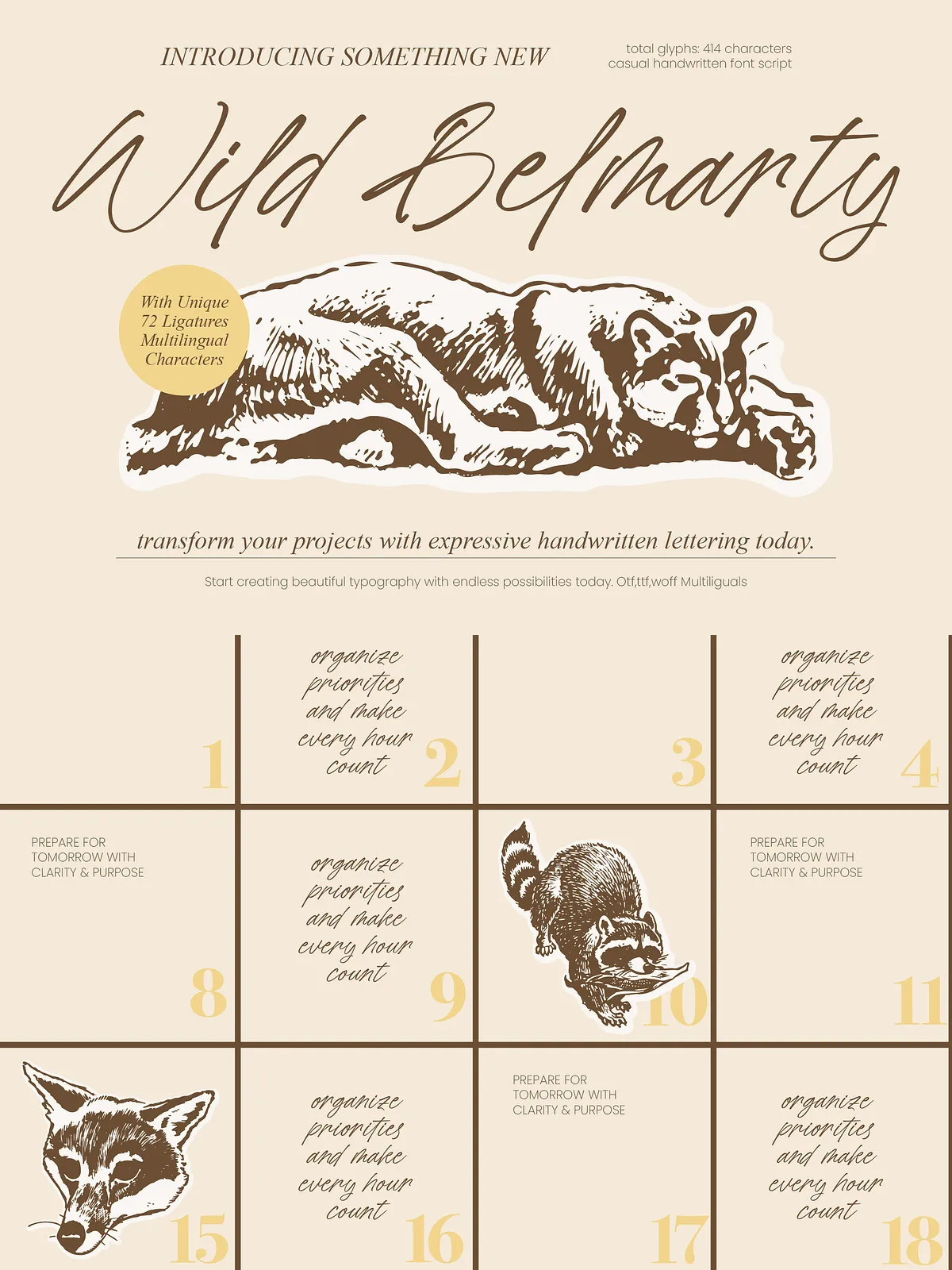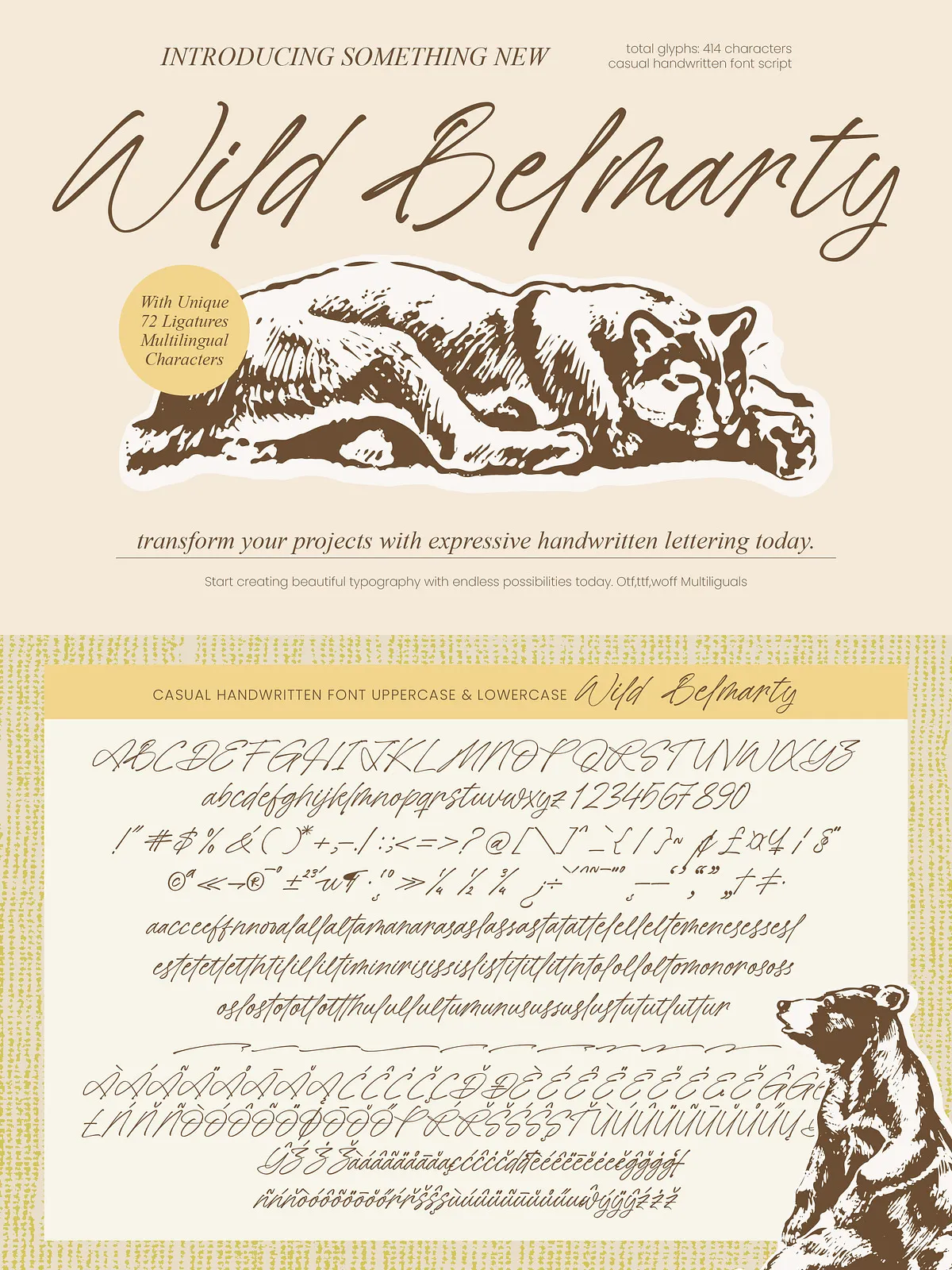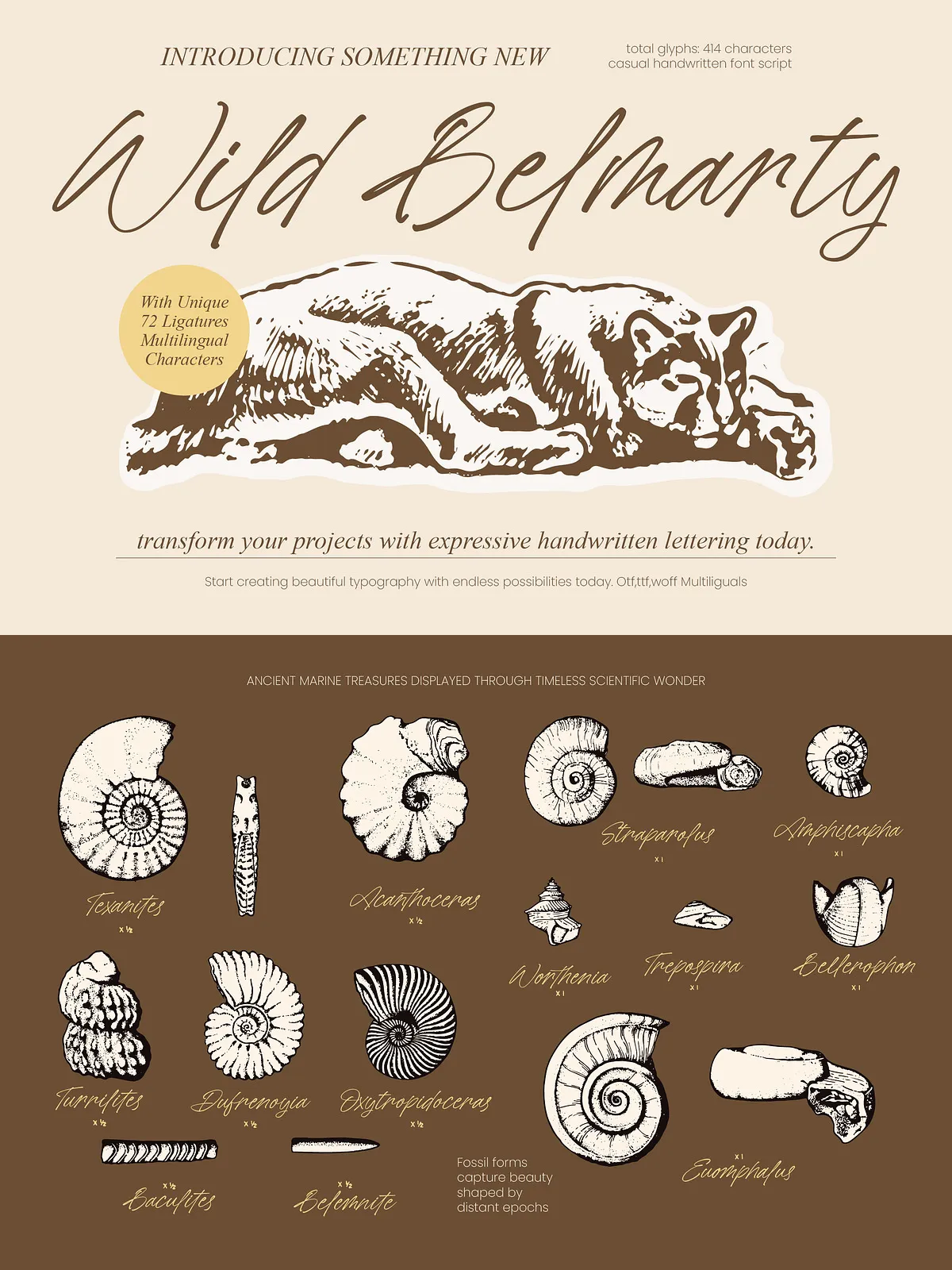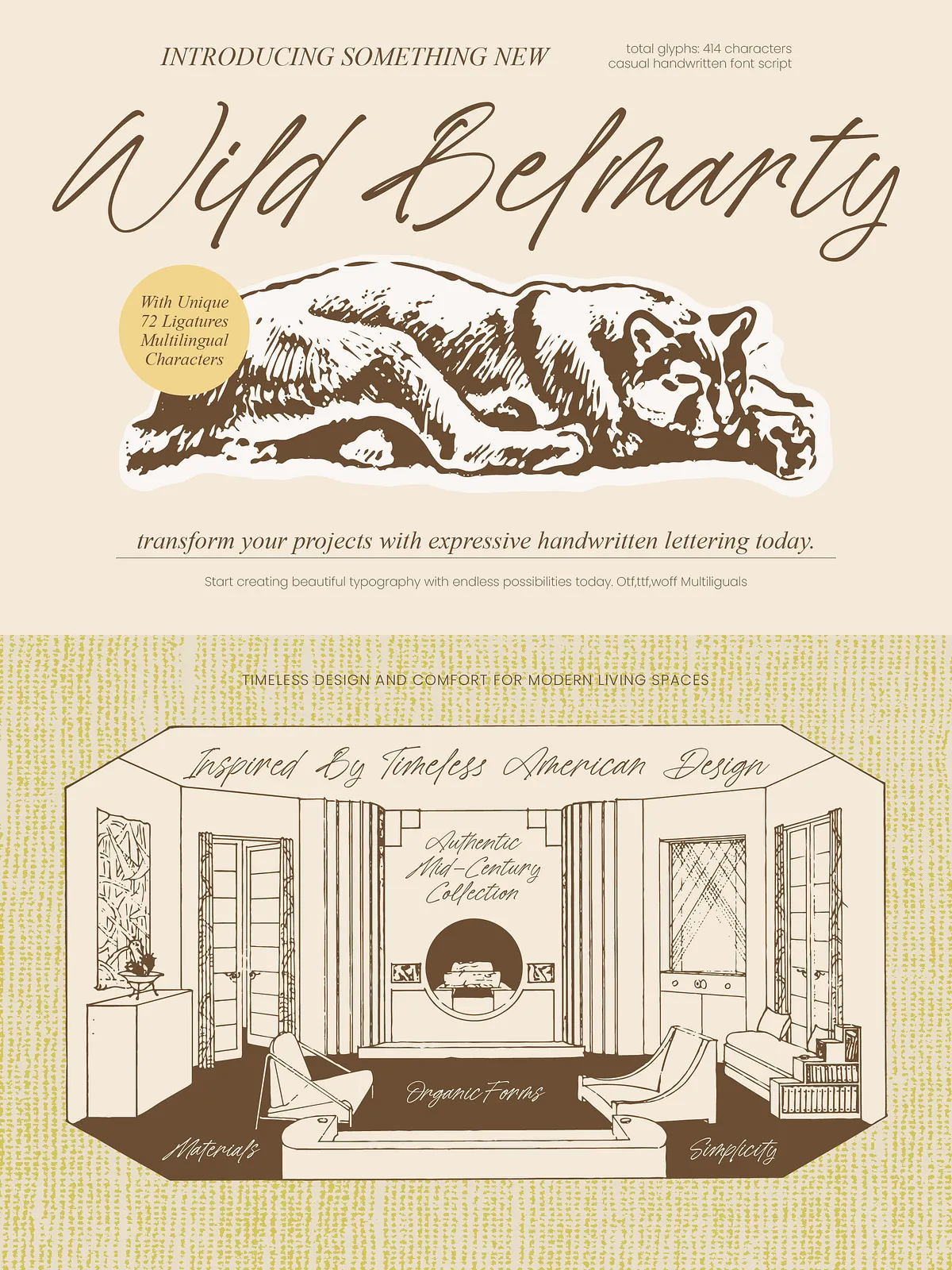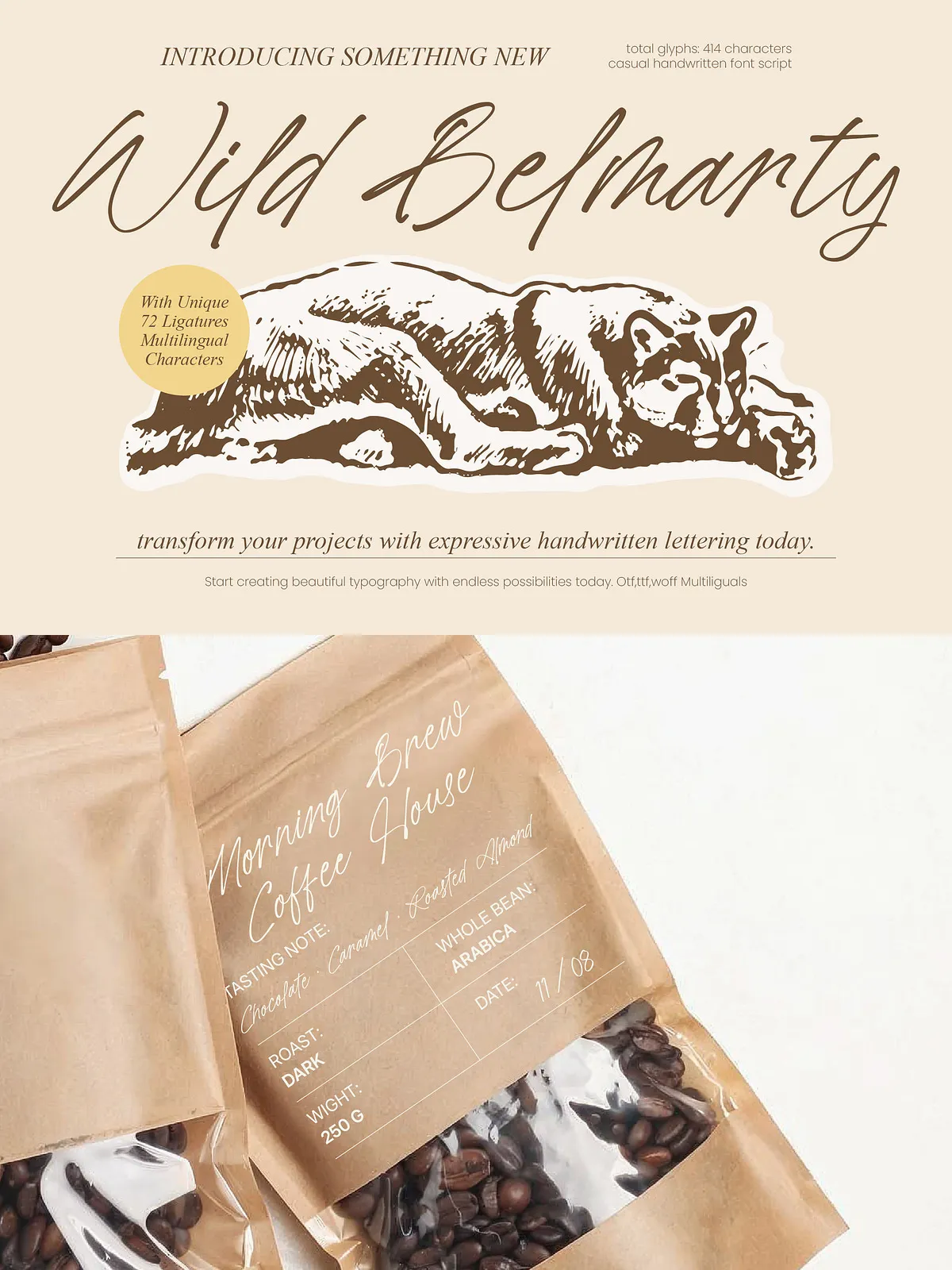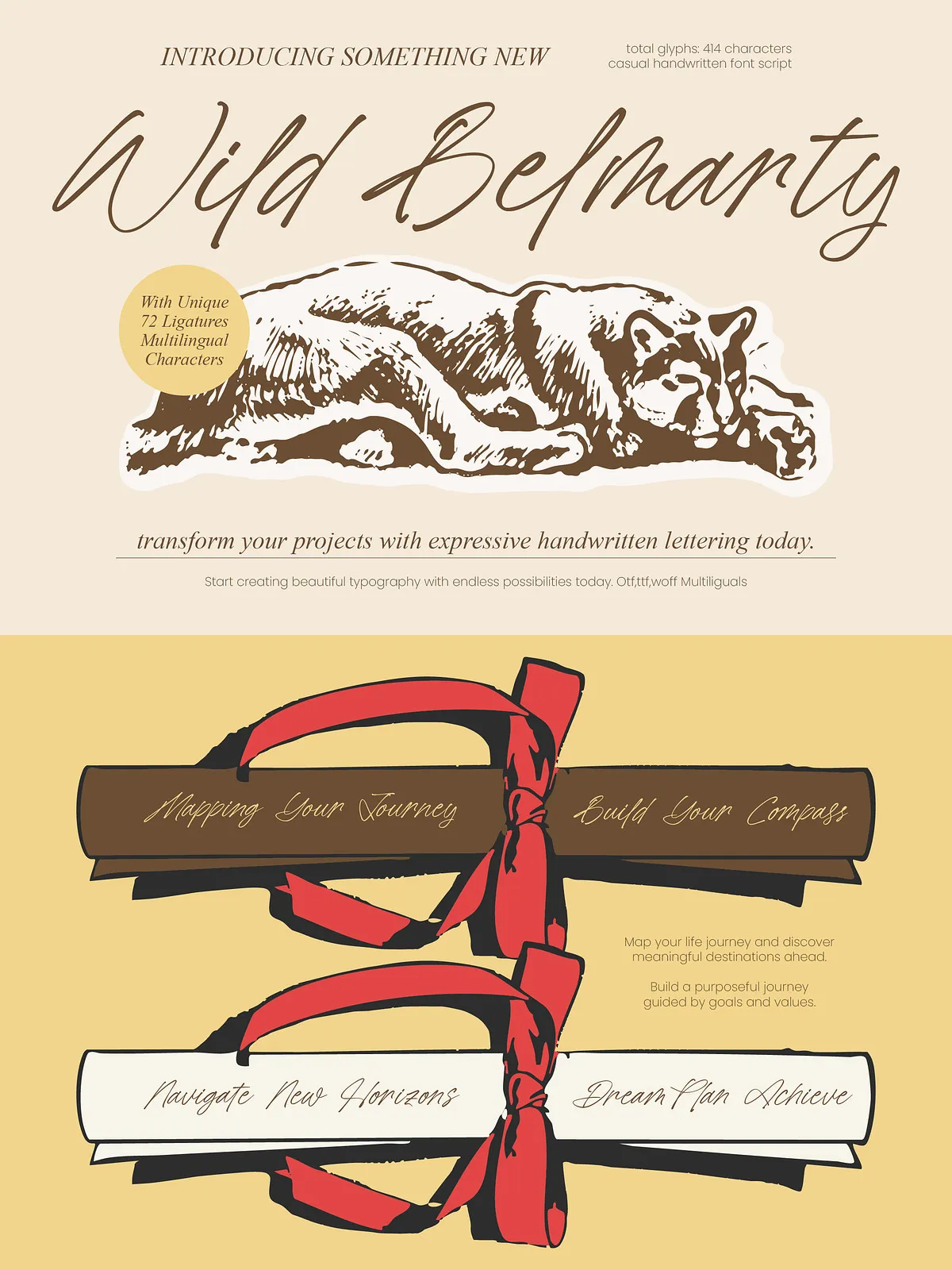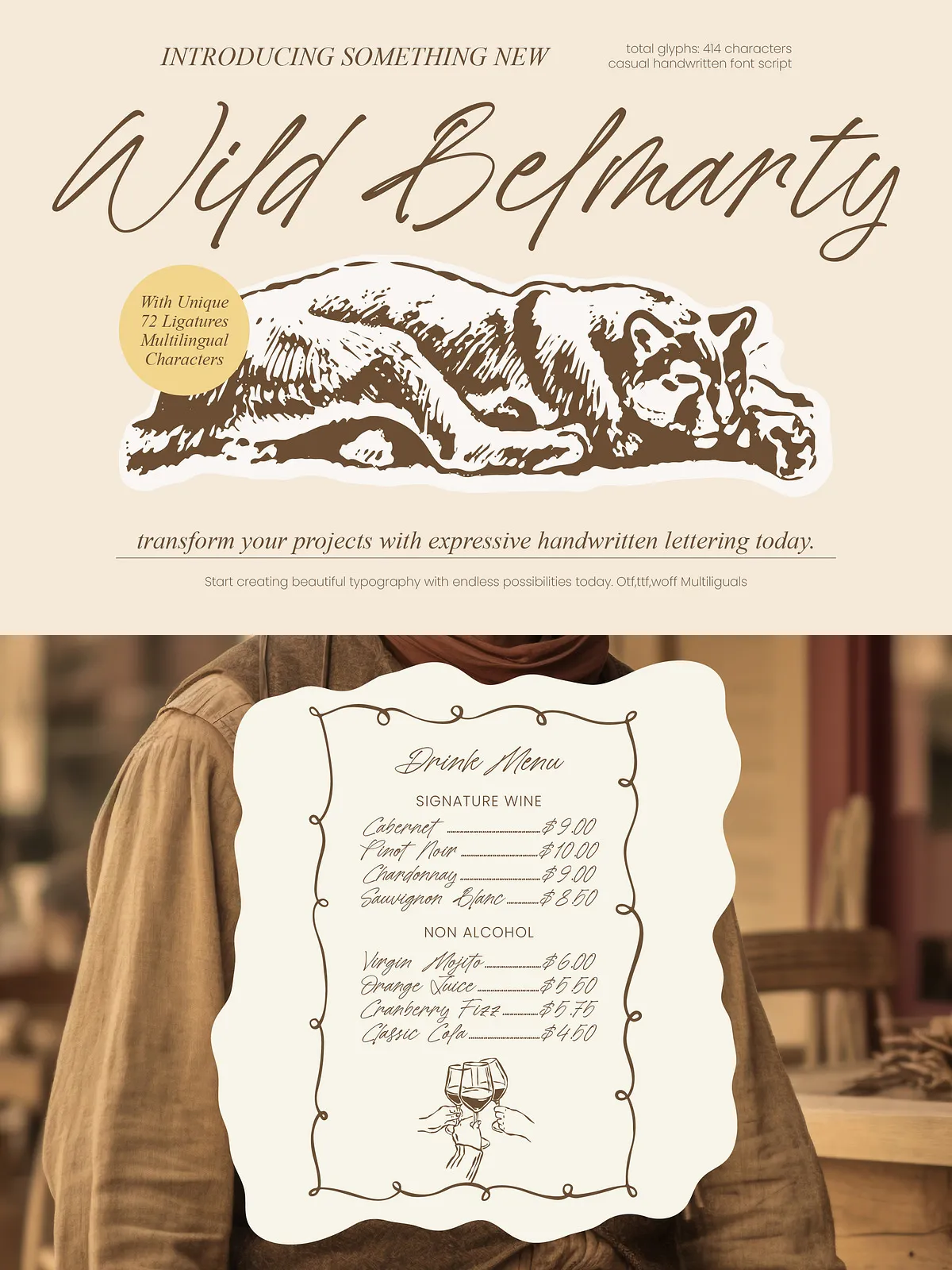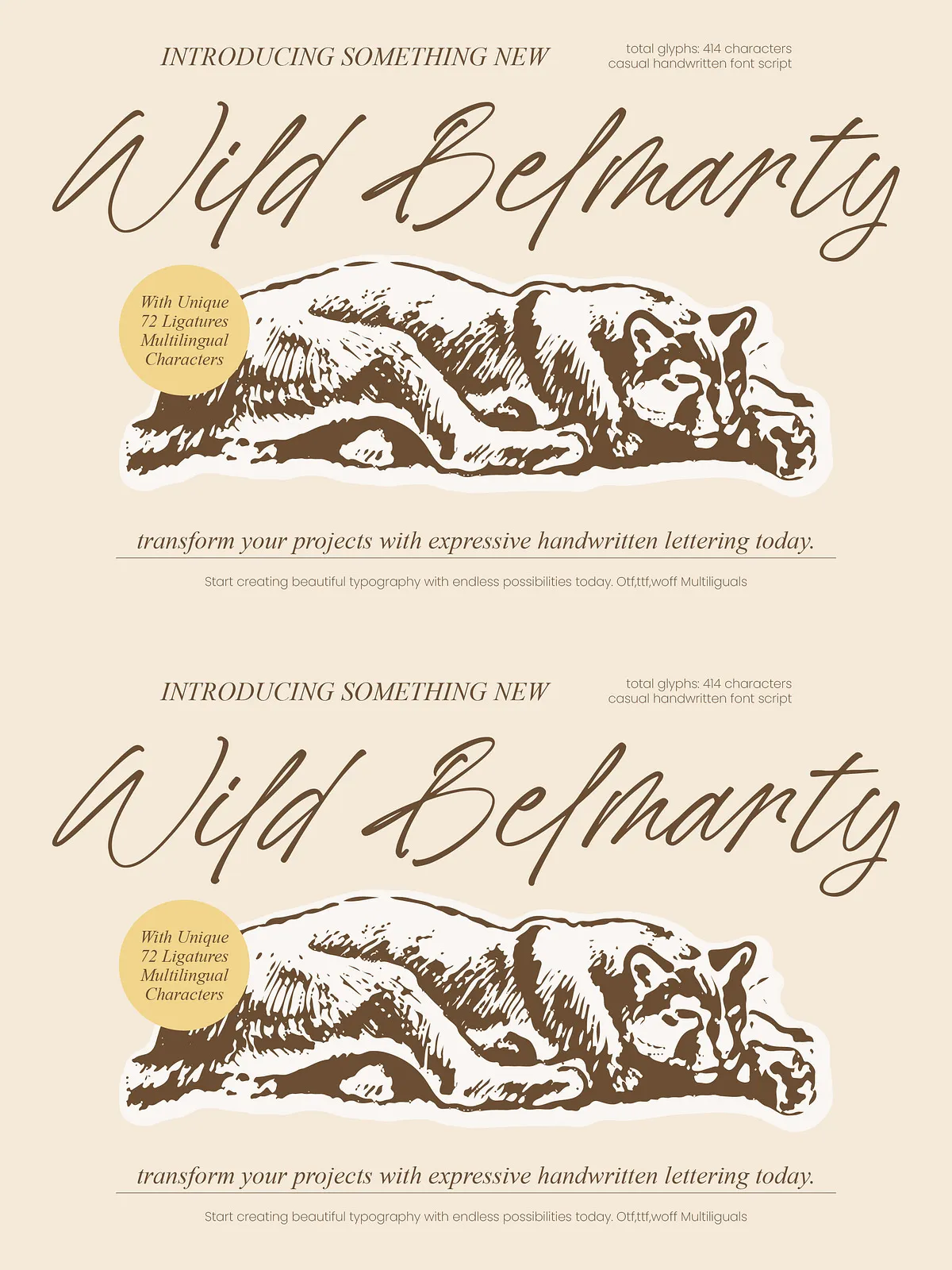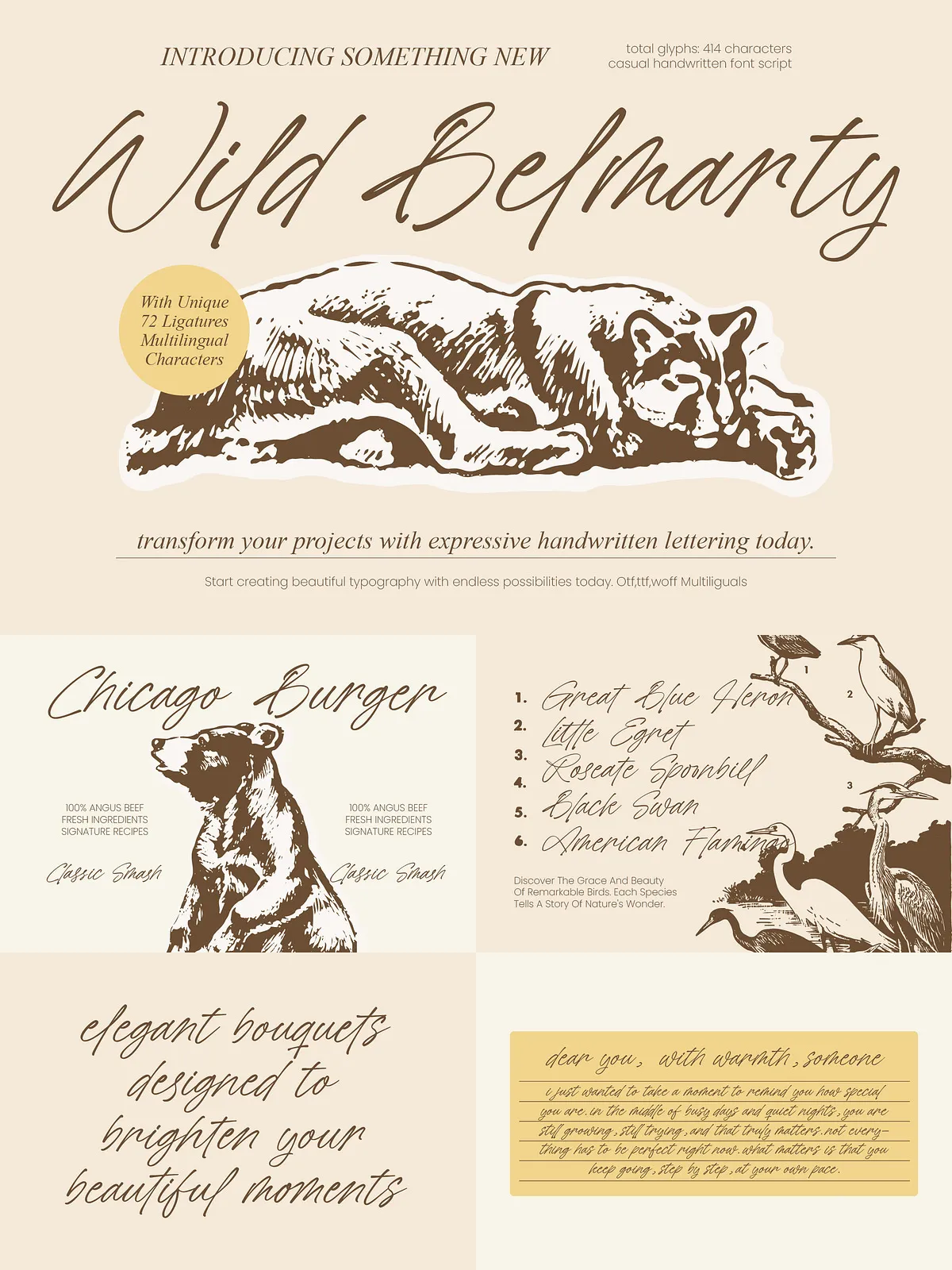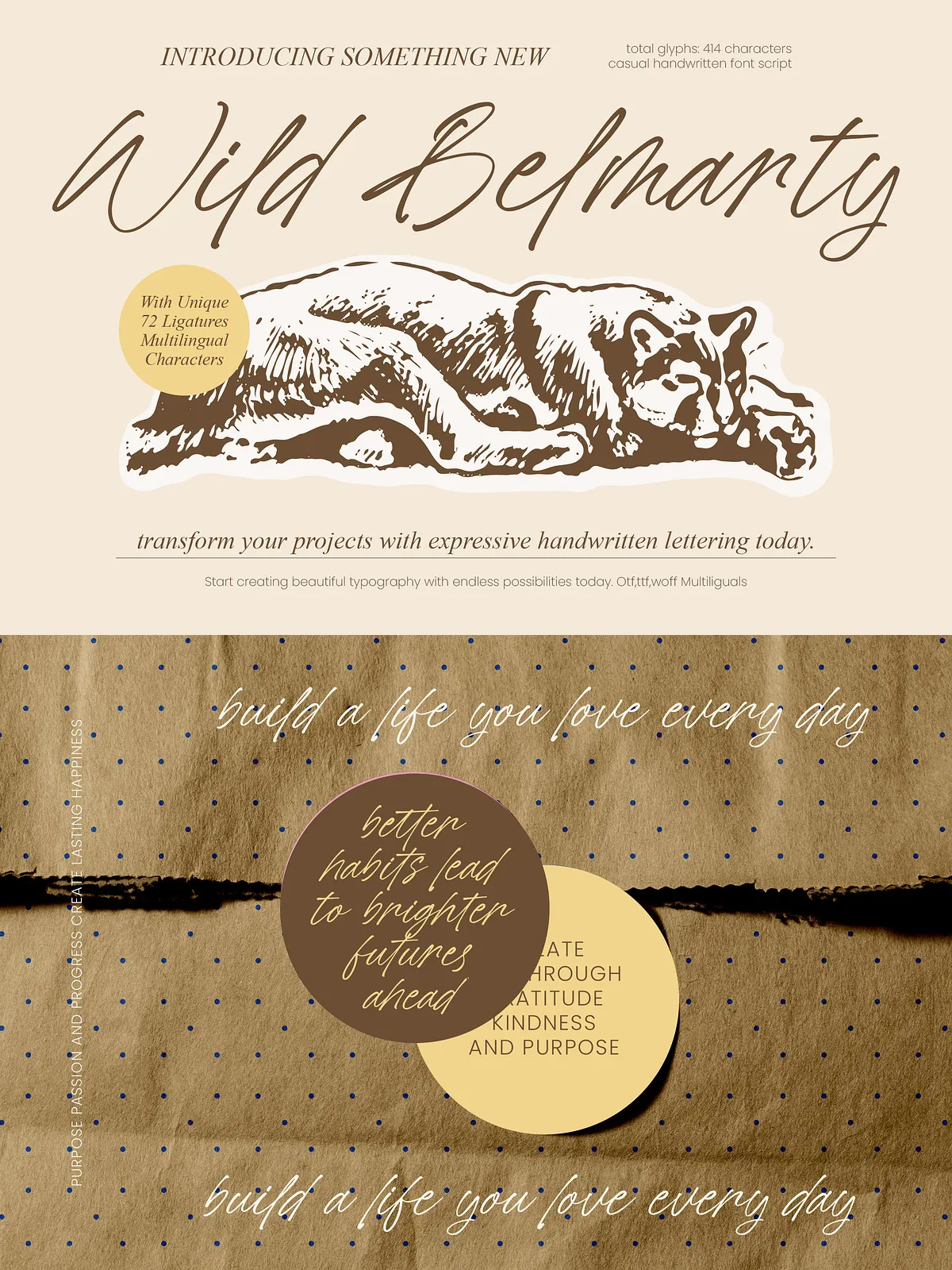
Wild Belmarty delivers an authentic, hand-crafted voice that elevates design with an effortless human touch. Designed to combine fluid motion with casual elegance, Wild Belmarty brings organic strokes and lively letterforms to any project. The typeface prioritizes clarity and personality so designers can create expressive headlines, memorable logos, and refined editorial layouts without sacrificing legibility.
Design Philosophy
Wild Belmarty emphasizes natural rhythm and confident gesture. Each glyph retains a handcrafted feel: strokes vary with purposeful contrast, connections flow smoothly, and terminals maintain a refined irregularity that reads as genuine rather than artificially distressed. The result: a script that feels personal, professional, and ready for commercial use.
Robust Character Set
Wild Belmarty ships with over 414 glyphs, enabling flexible typographic expression. The expanded set covers multiple accents and punctuation marks so you can compose rich, polished copy in many languages.
Advanced OpenType Support
The font includes 72 unique ligatures and alternate stylistic sets that activate automatically in apps that support OpenType features. Use contextual alternates and discretionary ligatures to create fluent letter connections and avoid repetitive patterns in long lines of script.
High Readability
Despite its free-flowing aesthetic, Wild Belmarty preserves generous counters and considered spacing. This balance ensures strong readability in display contexts such as headlines, packaging copy, and short editorial passages while retaining its signature warmth and energy.
Multilingual Capability
Global Ready
Wild Belmarty supports an extended range of Latin-based languages. The included accent marks and diacritics expand your reach so you can use the font across global campaigns, multilingual packaging, and international branding materials without resorting to fallback typefaces.
Recommended Uses
Branding and Logo Work
Apply Wild Belmarty to logos, wordmarks, and brand signatures where a personal, handcrafted voice strengthens recognition. Its expressive forms translate well to embossed print, foil stamping, and on-product marks that demand distinct personality.
Packaging and Product Design
Use the font to communicate artisan quality and premium craftsmanship on labels, tags, and product panels. The typeface reads clearly at larger sizes and adds an unmistakable handcrafted signature to premium packaging systems.
Editorial and Social Media
Leverage Wild Belmarty for magazine headers, feature pull-quotes, and social-media overlays. Its fluid shapes create engaging focal points and add human warmth to lifestyle photography, promotional graphics, and hero imagery.
Why Choose Wild Belmarty
Wild Belmarty transforms ordinary copy into an expressive, human-led experience. It actively enhances brand storytelling by combining artisanal charm with robust technical features: a wide glyph set, rich ligatures, and multilingual coverage. Designers who need a professional-grade handwritten script that reads as authentic and sells as premium will find Wild Belmarty a reliable, versatile addition to their toolkit.
Quick Tips for Best Results
- Enable contextual alternates and ligatures to create natural letter connections.
- Pair Wild Belmarty with a neutral sans for body text to preserve readability while showcasing the script in headings and accents.
- Use heavier weights or increased tracking for small-size display to maintain legibility in tight spaces.